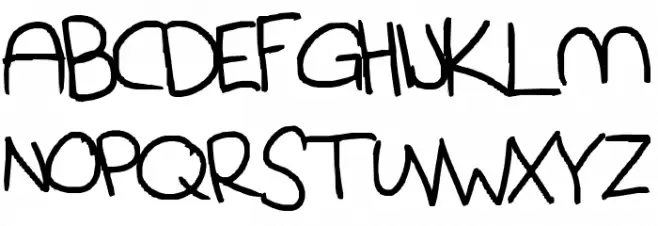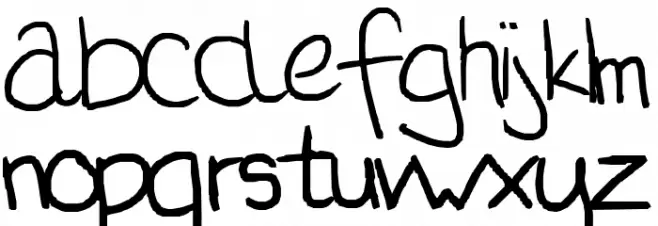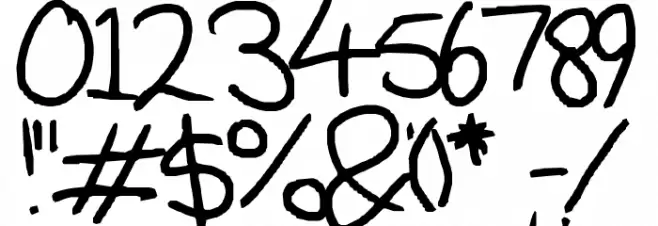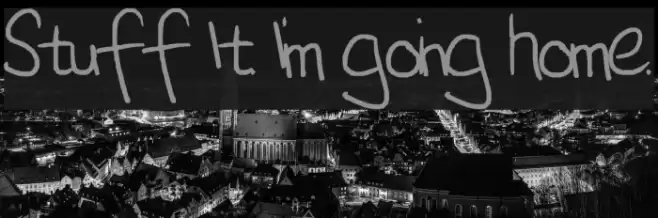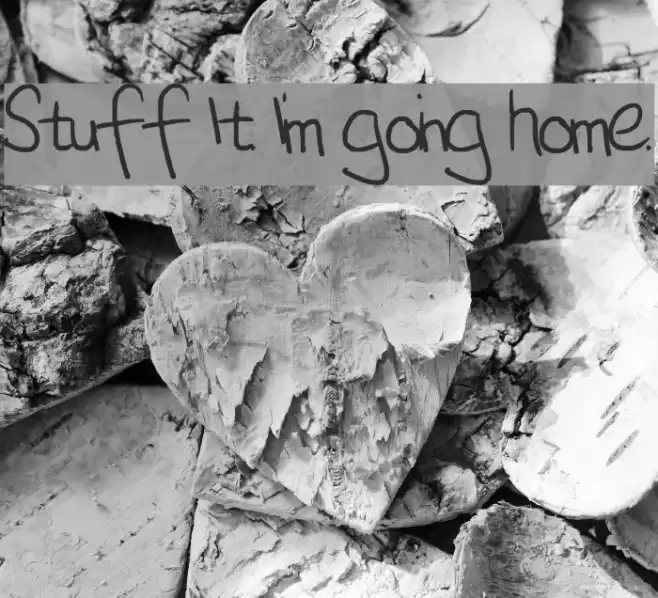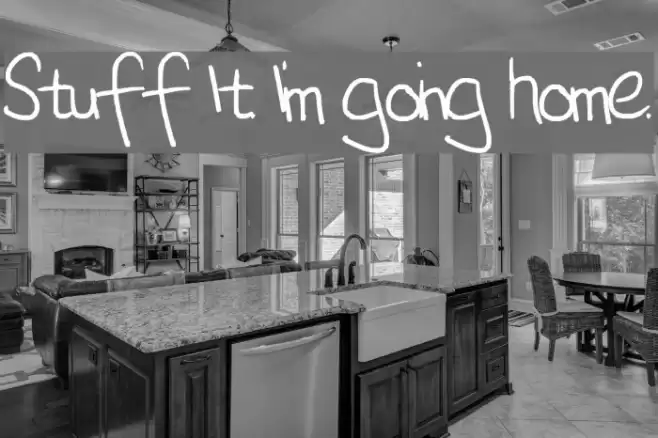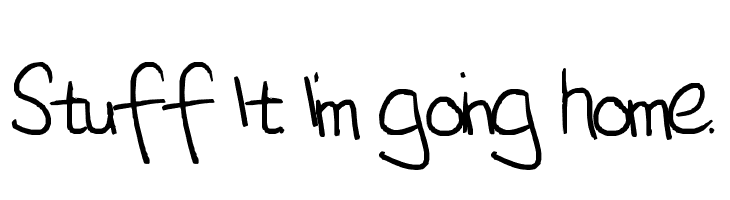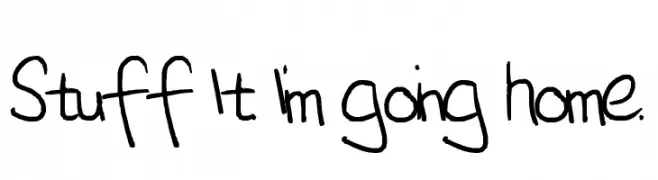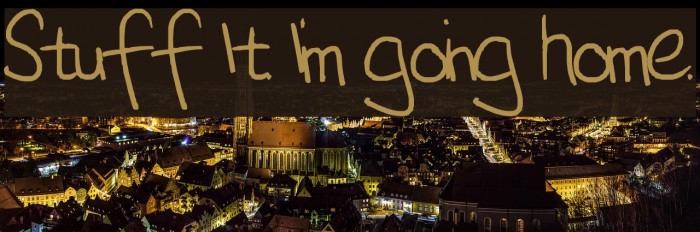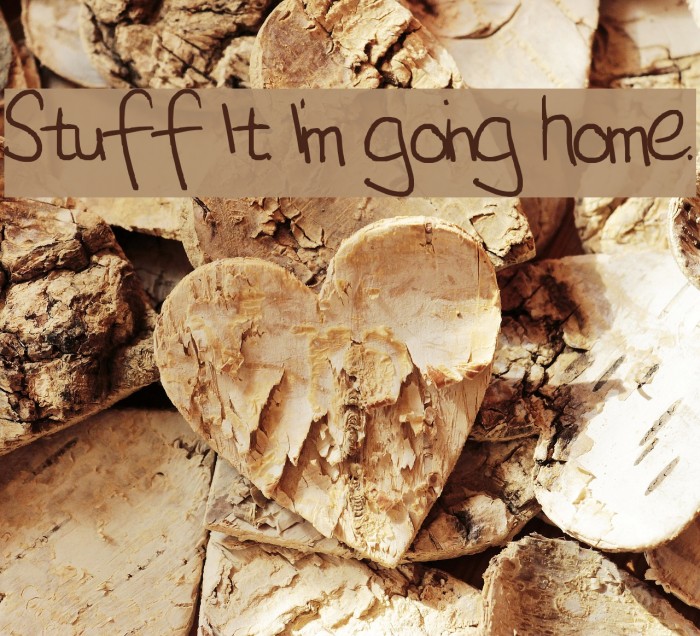
Stuff It. I'm going home.
This font exudes a playful and casual vibe, characterized by its hand-drawn, irregular strokes that give it a personal and informal touch. The letters are unevenly sized and spaced, adding to its whimsical charm. The uppercase and lowercase letters maintain a consistent style, with rounded edges and a slightly tilted orientation, reminiscent of a child's handwriting. Numbers and special characters follow the same playful aesthetic, making the font suitable for creative and informal projects. Its unique style is perfect for capturing attention and conveying a sense of fun and spontaneity.
A playful, hand-drawn font with irregular strokes and a casual vibe.
- Proposed Projects: Ideal for children's books, playful branding, casual invitations, and creative posters.
- Character Spacing: Wide
- Overall Style: Casual
- Use Case: Headlines, Posters, Invitations